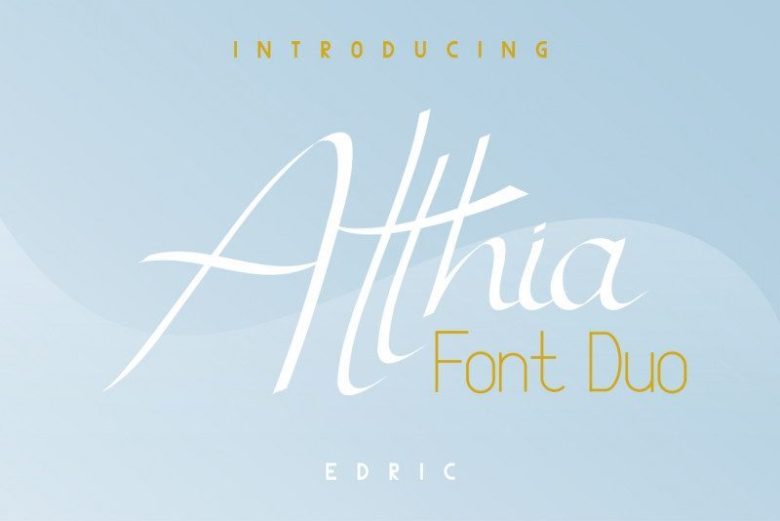
Atthia Font Duo
Hi Everyone! Introducing our newest font : Atthia ! This is a new font family with 3 styles : Regular, Vintage and Sans Serif. This is a modern script calligraphic font. It has a fresh, elegant, natural and stylish glyph.
Will be perfect for branding, logo, stationery, business card, signage, flyer, brochure etc. There are many industries that is suitable for this font : construction, real estate, services, law firm, nail salon, hair stylish, etc